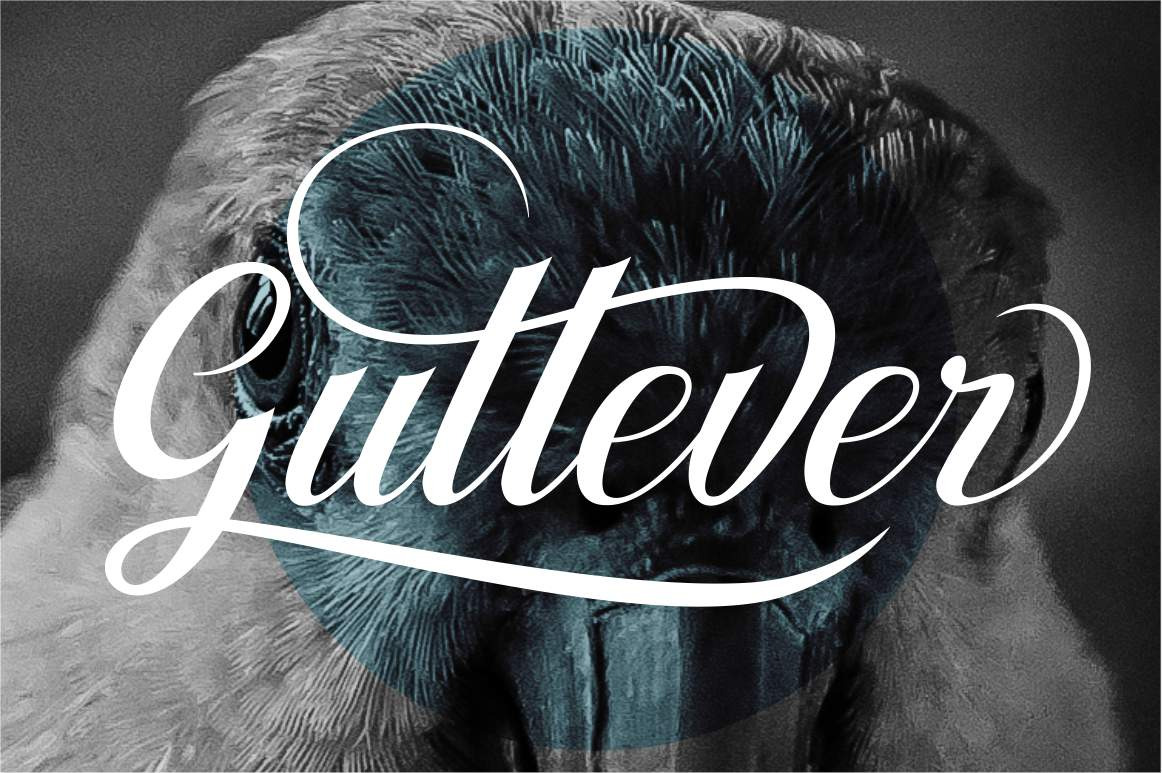
Gullever Font
gullever font was made to be a good and beautiful font,curves and lines are so soft which makes this font look pretty.Really befit to all your design project,like invitation card,product logo,food brand logo and much more.. gullever font also supported with extra character that include : standart ligatures,swashes, stylistic set 01 - stylistic set 05. that will help you get beautiful style with your own creation.